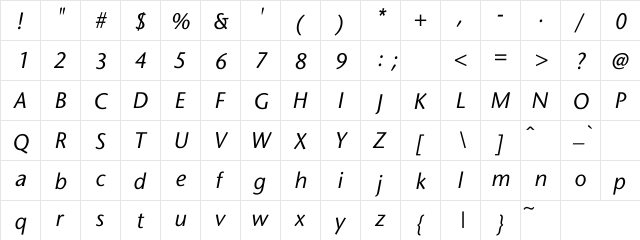
AldrichSansItalic Regular
Design Context for AldrichSansItalic Typeface
AldrichSansItalic offers clean, dependable letterforms without strong stylistic allegiance, making it a practical choice for designers who need flexibility. The dynamic lean of this cut emphasises speed and emphasis in any layout.
Pro Tip: Try AldrichSansItalic for annotation and caption copy alongside an upright companion — the contrast in angle creates a dynamic but ordered typographic system.